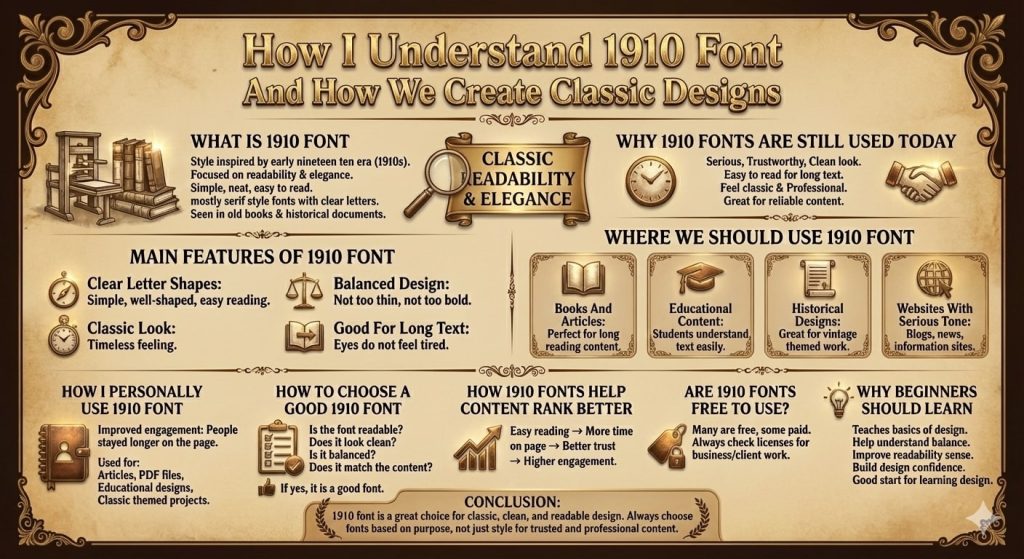
How I Understand 1910 Font And How We Create Classic Designs
I think this guide helps you understand 1910 font in a simple way so we learn what it is and how we use it to create classic and readable designs.
I think fonts play a very important role in design because they decide how our text feels to the reader. When I first learned about old style fonts I became very interested in the 1910 font style. I felt that these fonts look calm, classic and very clean. That is why I want to share my experience in very simple words so even a young student can understand what a 1910 font is and how we use it.
I think that if we understand old fonts properly then we can make our designs look more professional and trusted. We should know where to use these fonts and where not to use them. This guide is written in a friendly and easy way so you enjoy reading and also learn something useful.
What Is 1910 Font
I think a 1910 font is a style inspired by the early nineteen ten era. At that time printing books, newspapers and posters was very common and designers focused on readability and elegance. They are simple, neat and easy to read.
We can say that 1910 fonts are mostly serif style fonts with clear letters. If you look at old books or historical documents you will see similar font styles.
Why 1910 Fonts Are Still Used Today
I think many people ask why we still use such old fonts. The reason is very simple. These fonts look serious, trustworthy and clean.
We still use them because They are easy to read They feel classic They look professional They work well for long text
If we want our content to feel reliable then 1910 fonts are a good choice.
Main Features Of 1910 Font
I think knowing features helps us understand the font better.
Clear Letter Shapes
The letters are simple and well shaped which makes reading easy.
Balanced Design
The font is not too thin and not too bold.
Classic Look
It gives a timeless feeling.
Good For Long Text
Eyes do not feel tired while reading.
Where We Should Use 1910 Font
I think this font works best in places where clarity is important.
Books And Articles
Perfect for long reading content.
Educational Content
Students understand text easily.
Historical Designs
Great for vintage themed work.
Websites With Serious Tone
Blogs news and information sites.
How I Personally Use 1910 Font
I think sharing personal experience is important. I first used a 1910 style font in an article design project. I noticed that people stayed longer on the page because reading felt easy. After that I started using it for blog content and study material.
Now I use it mostly for Articles PDF files Educational designs Classic themed projects
How To Choose A Good 1910 Font
I think not all fonts are equal.
We should check Is the font readable Does it look clean Is it balanced Does it match the content
If the answer is yes then it is a good font.
How 1910 Fonts Help Content Rank Better
I think user experience matters a lot. When text is easy to read, users stay longer. This helps websites perform better.
Easy reading More time on page Better trust Higher engagement
That is why font choice matters.
Why Beginners Should Learn About 1910 Fonts
I think beginners should learn old fonts because they teach the basics of design.
They help understand balance They improve readability sense They build design confidence
If you are learning design this font style is a good start.
FAQ
What is a 1910 font?
It is a classic font inspired by the early nineteen ten design style.
Is the 1910 font good for reading?
Yes, it is very good for long texts.
Can beginners use a 1910 font?
Yes it is easy and safe to use.
Is the 1910 font good for modern design?
Yes if the design needs a classic touch.
Where can we use the 1910 font?
In books, articles, education and classic designs.
Conclusion
I think the 1910 font is a great choice if we want our design to look classic, clean and readable. We learned what this font is, where to use it and how to avoid mistakes. If we use this font the right way then our content feels more trusted and professional.
We should always choose fonts based on purpose, not just style. This guide gives you clear ideas and real experience so you can use 1910 fonts with confidence and solve your design problems easily.